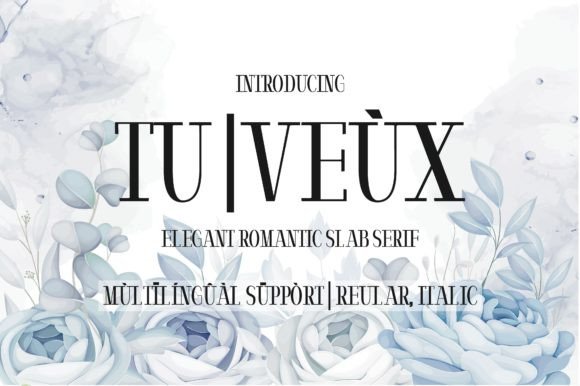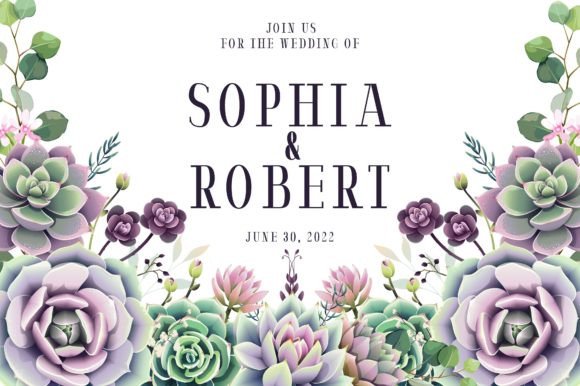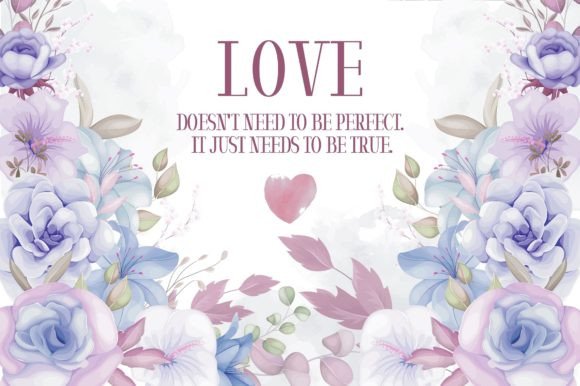
Tu | Veùx: A Romantic and Elegant Slab Serif Typeface
Tu | Veùx is a romantic elegant slab serif typeface. It works best when used in titles and when a romantic nostalgic aspect is required for a certain design. This versatile font is perfect for invitations, weddings, magazine covers, website homepage covers, packaging, and more.
Key Features of Tu | Veùx
- Romantic Design: Offers a charming and elegant look suitable for various romantic applications.
- Slab Serif Structure: Features distinctive serifs that add character and style.
- Nostalgic Appeal: Brings a touch of vintage charm to designs.
- Versatile Application: Ideal for both print and digital media projects.
Ideal Uses for Tu | Veùx
Tu | Veùx’s unique characteristics make it particularly well-suited for:
- Wedding invitations and stationery
- Romantic magazine covers and layouts
- Website headers for romantic themes
- Packaging design for luxury products
- Titles for romantic novels or films
- Greeting cards and love letters
- Branding for romantic or vintage-inspired businesses
When incorporating Tu | Veùx into your designs, consider these tips:
- Use for headlines or short blocks of text to showcase its romantic style.
- Experiment with different sizes to highlight the font’s elegant features.
- Consider pairing with simpler sans-serif fonts for body text to create contrast.
- Utilize its nostalgic appeal to create designs that evoke a sense of timeless romance.
Tu | Veùx is an excellent choice for designers looking to add a romantic and elegant slab serif font to their typographic toolkit. Its ability to bring charm and nostalgia to various design projects makes it stand out in the world of typography. Whether you’re working on wedding invitations, creating magazine layouts, or developing content that requires a touch of vintage romance, Tu | Veùx offers the perfect blend of style and emotion.
Furthermore, Tu | Veùx’s unique design allows it to shine in various contexts. From luxury product packaging to romantic website headers, this font can elevate your projects with its distinctive style. Its elegant yet readable appearance works particularly well in designs that aim to evoke feelings of love and nostalgia.
In conclusion, Tu | Veùx is a font that truly captures the essence of romance and elegance in typography. Its ability to work well in both traditional print media and modern digital applications showcases its versatility. For those looking to add a touch of romantic charm to their work, Tu | Veùx can enhance themed creations with its distinctive style. It’s the perfect choice for designers seeking to make a sophisticated, stylish impact across a wide range of romantic and nostalgic creative projects.